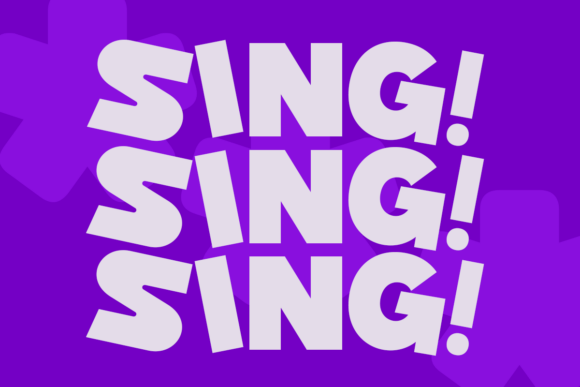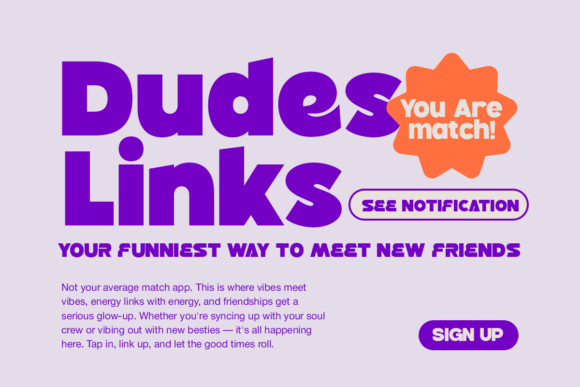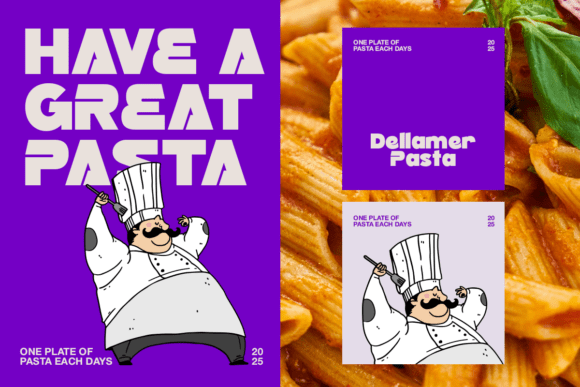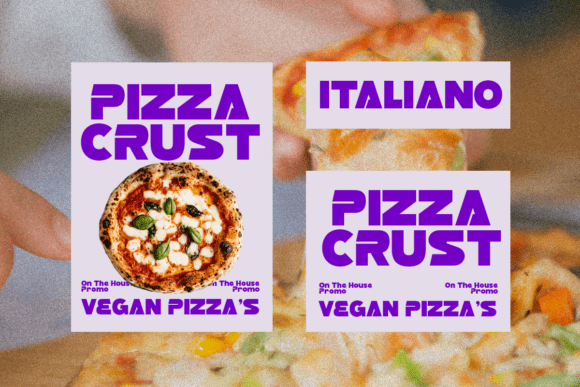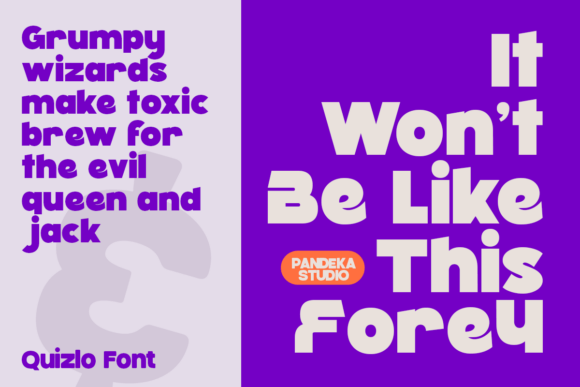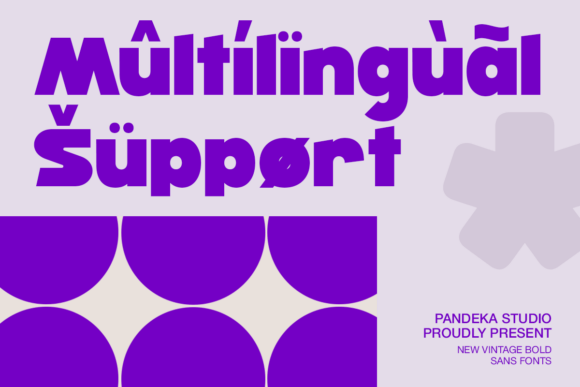
Introduction to Quizlo Font
Quizlo is a bold and playful sans-serif font crafted to grab attention and infuse food branding with a sense of fun and flavor.
Its chunky, rounded letterforms bring a friendly personality and create a deliciously bold visual impact , making it the perfect choice for the culinary world Ideal for restaurant logos, menus, packaging, food products, social media, and advertising , Quizlo helps brands express joy, creativity, and appetite appeal.
Key Features of Quizlo Font
Why Choose Quizlo Font?